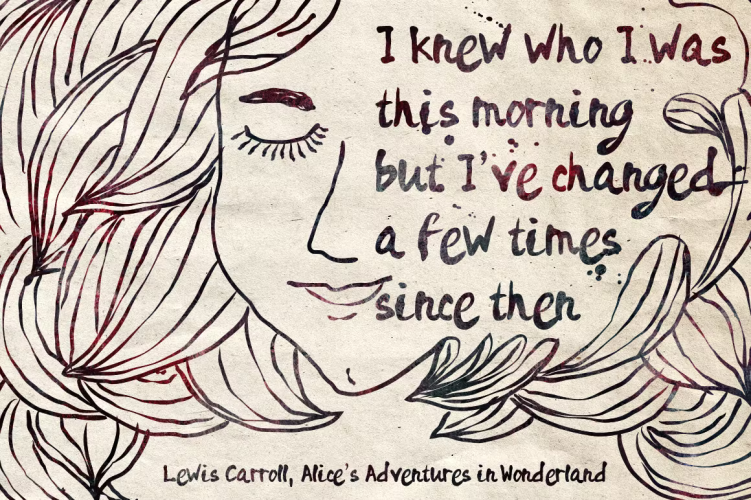
Rainy Days a Playful typeface Font
Rainy Days – a playful inkish typeface. This type was made by hand with black indian ink. I also added an ink drops and splashes to add more hand painted look and feel.
Rainy Days a Playful typeface Font is a Script And Handwritten font that brings a professional and versatile look to your projects. Rainy Days – a playful inkish typeface.